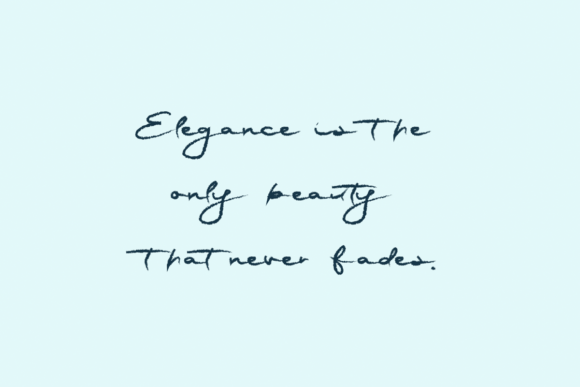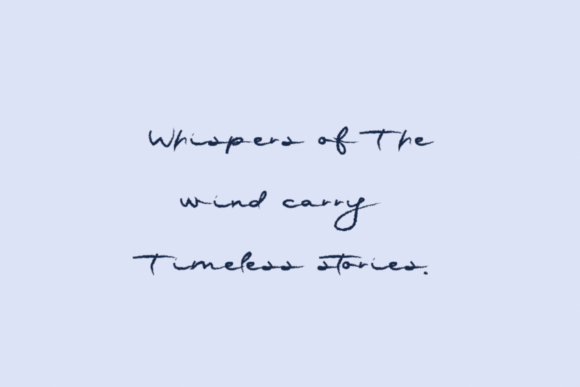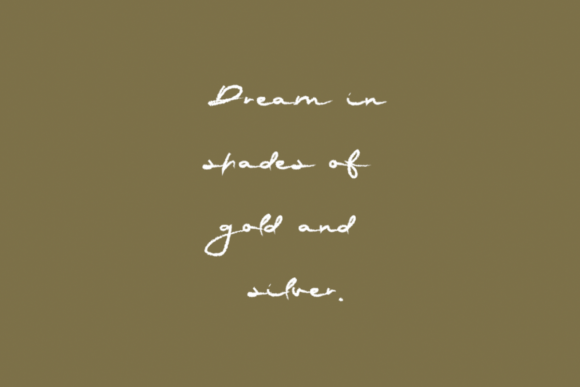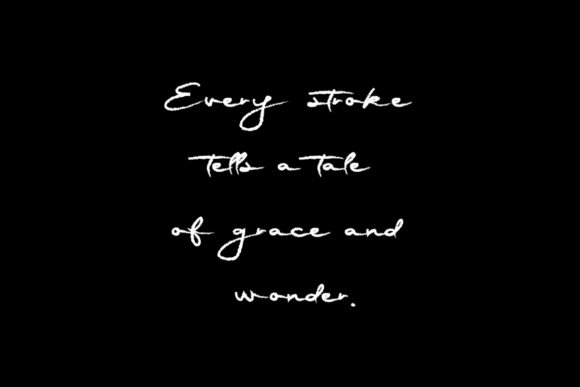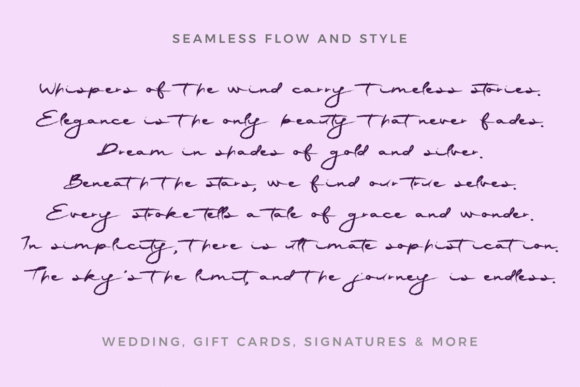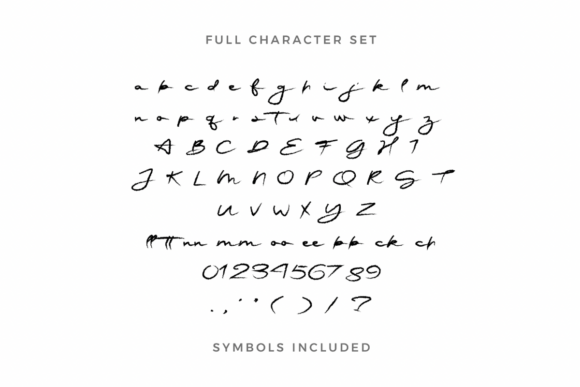
Introduction to Fetch Font
Introducing Fetch – an extraordinary script typeface that boasts a unique handwritten style.
Exuding charming appeal, this lovely hand-lettered font seamlessly blends creativity with legibility, perfect for injecting a personal touch into any design project This one-of-a-kind, impeccably drawn typeface beckons you to explore its distinct charm and character.
Fetch Font offers exceptional quality and versatility, making it a valuable addition to your design toolkit. Whether you’re creating for personal projects or commercial use, Fetch Font delivers professional results.